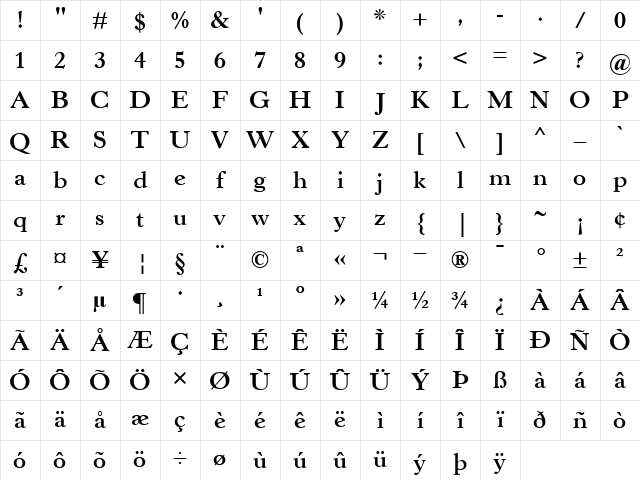
HorleyOldStyleMT Bold
Design Context for HorleyOldStyleMT
HorleyOldStyleMT carries the refined structure of traditional serif typography, with bracketed terminals and considered proportions that communicate credibility and craft. Its bold stroke weight gives it real presence on the page.